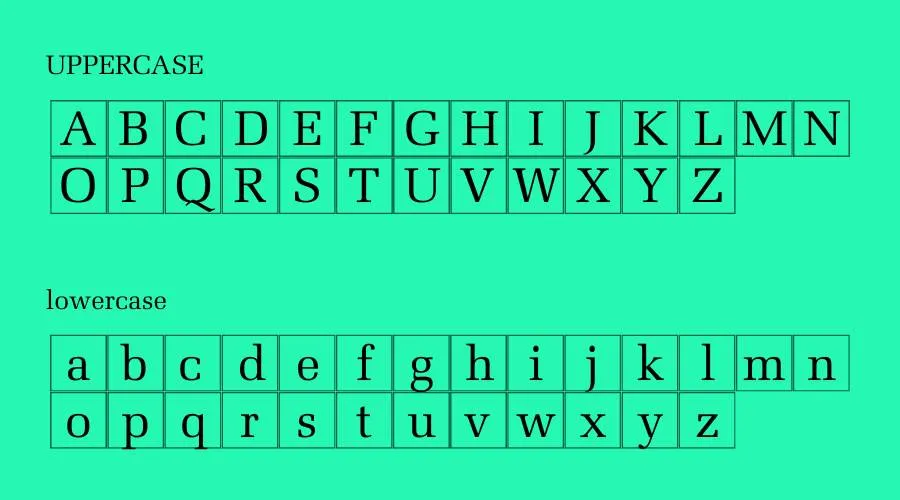
About Melior Font
The Melior Font was created by a famous typographic developer known as the name of Hermann Zapf. This attractive typeface was published in 1952 by stempel foundry. It belongs to the category of the serif font family.
It is available in 8 glyphs and includes different types of characters such as uppercase, lowercase, numeric, and symbols. You can compare this eye-catching font with multiple other styles. A similar font of this typeface is Arial font. This font has unique features that will deliver an outstanding touch.
These typeface structures feature a pronounced contrast in stroke widths. This contrast also improves the designs readability. It is the best choice for all your fun designs and purposes because of its stylish and goog-looking texture.